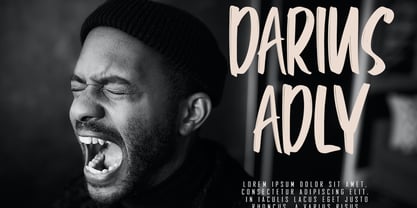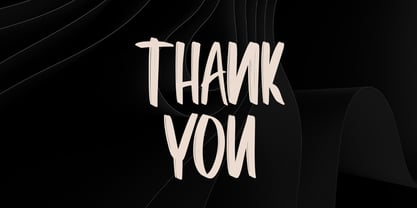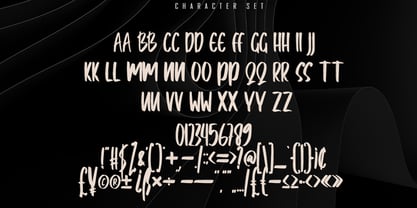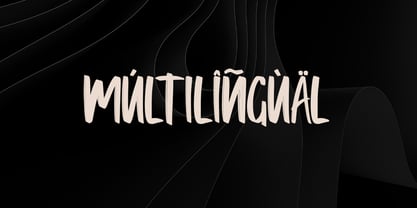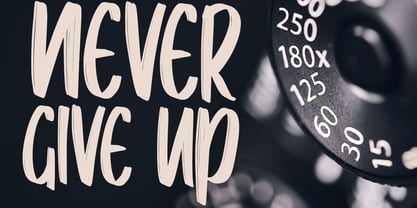
Abraly
by Skiiller Studio
The Abraly Font Family was designed by Irfan Mahmudin and published by Skiiller Studio. Abraly contains 1 styles.
Abraly is a contemporary hand-brush font that showcases bold, expressive strokes, embodying the authentic essence of handcrafted brush lettering. With its textured details and dynamic shapes, this font imparts a strong, artistic personality to every design while ensuring a clean and professional appearance. Ideal for branding, logos, posters, book covers, social media graphics, merchandise, and creative headlines, Abraly infuses energy, character, and a natural brush aesthetic into any project. Its versatility and unique style make it a standout choice for designers seeking to elevate their visual communication.